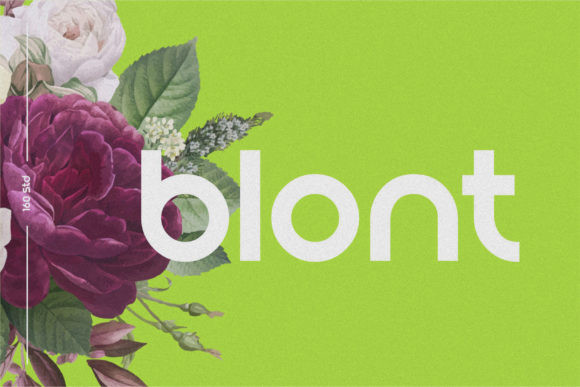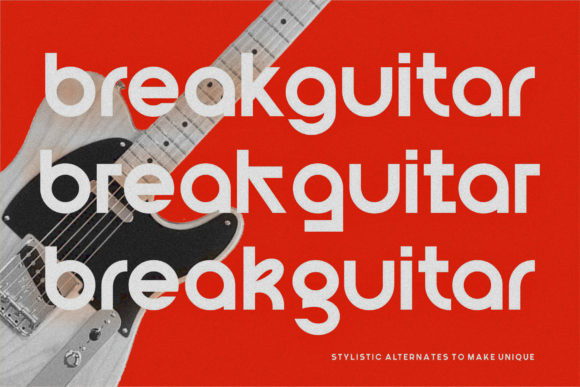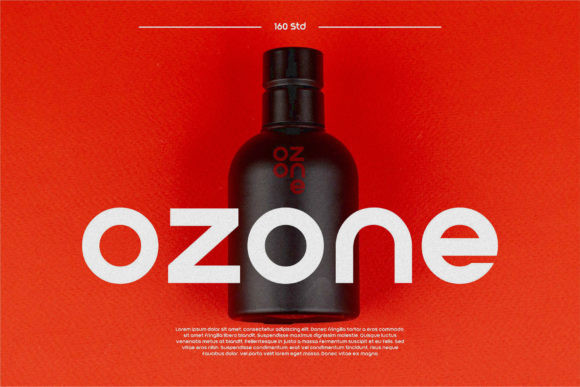
Blont Font
Blont is a simple, minimal and techno looking sans serif font. Add it confidently to your favorite creations and let yourself be amazed by the outcome generated.